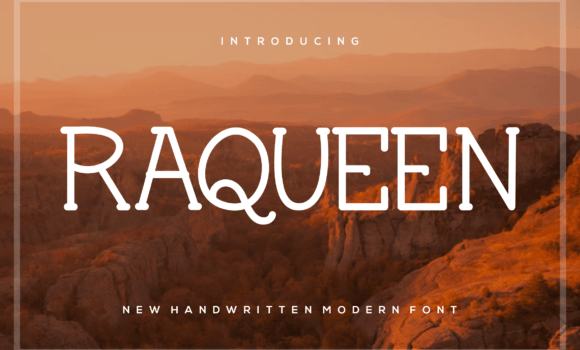
raqueen
Raqueen Font - Featured Image
Raqueen Font – Free Download Introduction to Raqueen Font Raqueen is a well-rounded serif font, perfect for adding a unique touch to your creations. 📸 Preview Gallery 3 images 📌 Product Name Raqueen Font 👤 Author yohanes mulat argo 📂